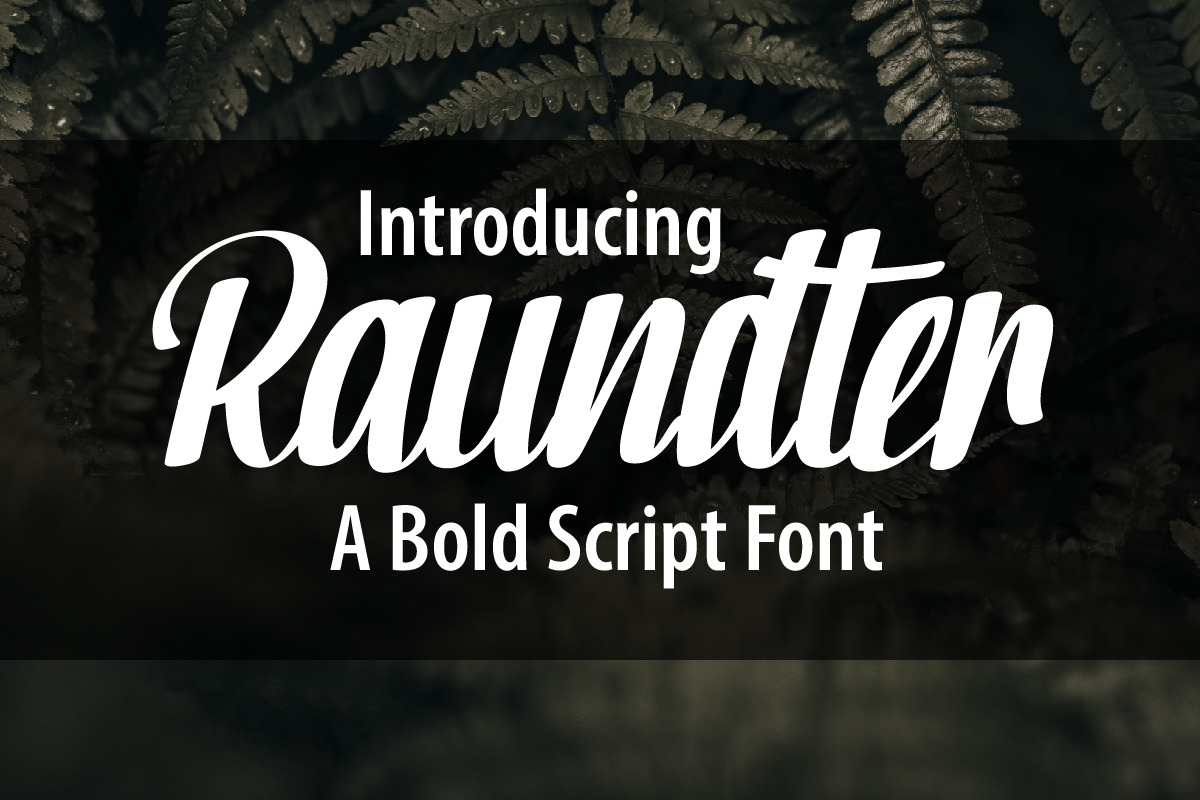
Raundter a Bold Script Font
Raundter A Bold Script Font is our new item suitable for your Posters.
Great for Logo, Poster, Sticker, Jerseys, Invitation Card, Brochure, etc.